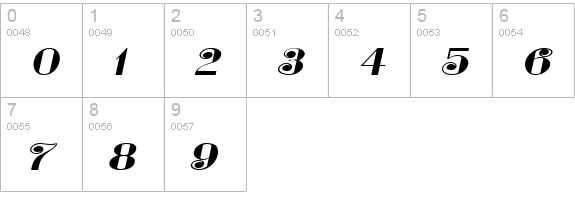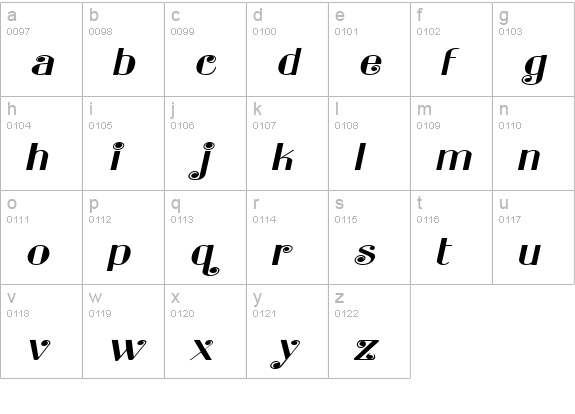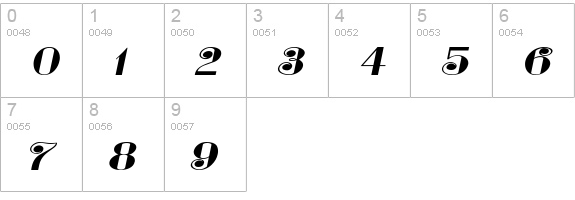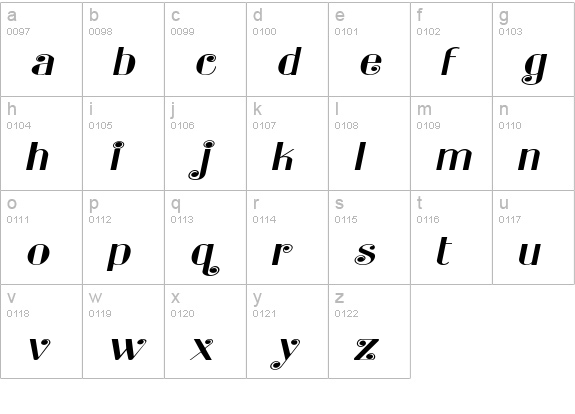
Ladybug Italic Font Details
Ladybug Italic is a distinctive, italic variant in the Ladybug typeface family \xE2\x80\x94 well suited to design and typography projects.
Ladybug Italic font is a charming and whimsical typeface that adds a touch of playfulness and joy to any design project. Its delicate curves and slanted letterforms create an elegant and dynamic look, capturing the essence of a ladybug gracefully gliding through the air. This font is perfect for adding a touch of personality to invitations, greeting cards, posters, and more. It is designed with meticulous attention to detail, ensuring that each letter flows seamlessly into the next, creating a harmonious and cohesive visual experience. Ladybug Italic font is freely available to download at FontsMarket.com. This means that you can easily access and use this delightful font for both personal and commercial projects without any restrictions or limitations. Whether you are a designer looking to add a playful touch to your creations or an individual looking to make your personal projects stand out, Ladybug Italic font is the perfect choice. With its unique and eye-catching design, this font is sure to capture the attention of viewers and leave a lasting impression. Its versatility allows it to be used in a wide range of design projects, from children's books and illustrations to branding and packaging. Download Ladybug Italic font today from FontsMarket.com and let your creativity soar with this delightful and free typeface. Embrace the whimsy and charm of this font and watch as your designs come to life with a touch of magic.